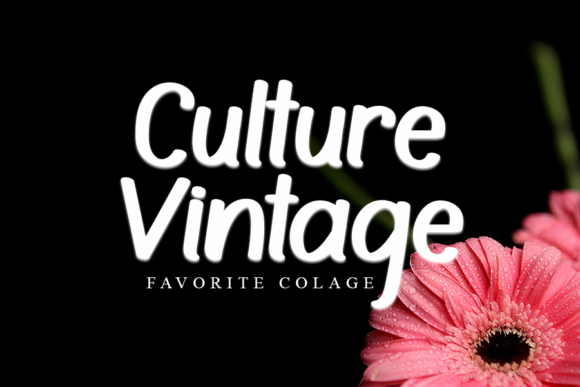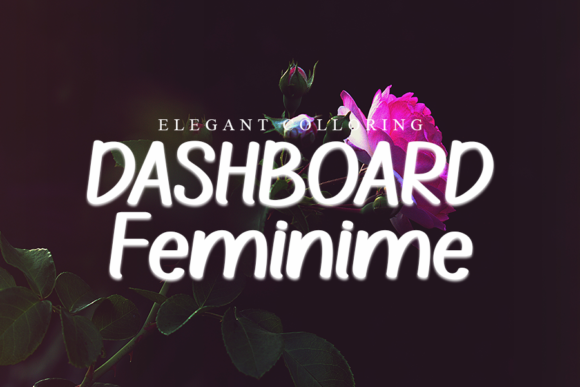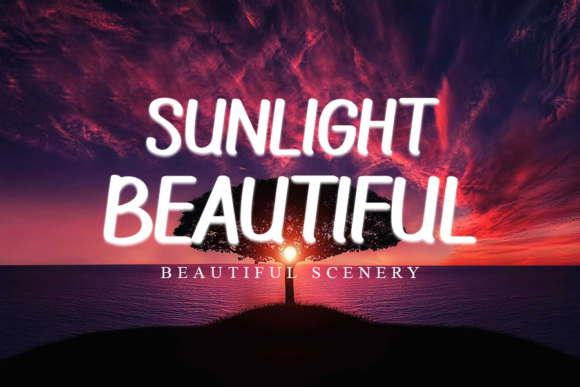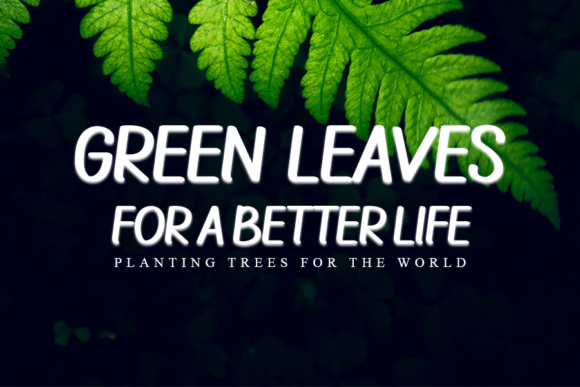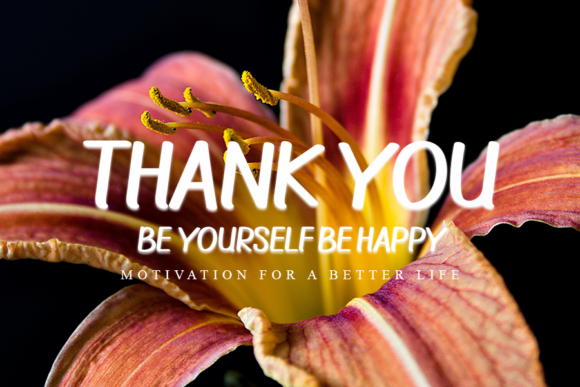
Discovering the Perfect Handwritten Touch
Have you ever been brainstorming a creative project and suddenly, the perfect font pops into your mind? For me, it was the sound of a brush pen gliding across the page, creating a smooth, effortless line that echoed the Ballpoint Font’s signature style.
The Ballpoint Font is a beautifully crafted, handwritten font that’s perfect for adding a touch of personality to your designs. Whether you’re working on a letterhead, title, or stationery, this font is sure to bring a sense of warmth and approachability to your work. Its casual, yet refined style makes it a valuable asset for designers looking to add a unique touch to their projects.
With the Ballpoint Font, the possibilities are endless – from elegant invitations to playful social media graphics, this font is the perfect companion for any creative project.
Key Features of Ballpoint Font
- Unique Characteristics: The Ballpoint font features a distinctive, handwritten style with a range of line widths and subtle texture, giving it a unique, organic feel.
Ballpoint Font Review
I’ve had the chance to work with Ballpoint Font, and I must say it’s a unique addition to any design project. ✨ The font’s quirky, handwritten feel adds a touch of personality to text, making it perfect for creative projects, social media graphics, or even advertisements. The subtle imperfections and irregularities in the font give it a human touch, which can be really effective in conveying a brand’s tone.
One of the standout features of Ballpoint Font is its versatility. ✨ It works well in both digital and print formats, and the font’s compact footprint makes it easy to use in small spaces. Additionally, the font is highly customizable, allowing designers to adjust the size, color, and even the spacing between letters to suit their needs.
However, there are a few limitations to consider. ⚠️ For one, Ballpoint Font may not be the best choice for body text, as its irregularities can make it difficult to read in large blocks of text. Additionally, the font’s handwritten feel may not be suitable for formal or professional projects.
Overall, I think Ballpoint Font is a great addition to any designer’s toolkit. While it may not be the best choice for every project, it’s definitely worth having in your arsenal for those occasions when you need to add a touch of personality to your design. With its unique feel and high level of customization, Ballpoint Font is a solid choice for designers looking to add some creativity to their work.
- Quirky, handwritten feel
- Works well in digital and print formats
- Compact footprint
- Not suitable for body text or formal projects
Getting the Most Out of Ballpoint Font
Ballpoint Font is a versatile font that can be used in a variety of contexts. To get the most out of it, try using it in bold or italic styles to add emphasis.
You can also experiment with different font sizes to create visual interest.
Ballpoint Font is commonly used in:
• Retro-themed designs
• Handwritten or cursive text
• Titles and headings
Alternatives to Ballpoint Font
Helvetica
Helvetica is a highly legible sans-serif font, suitable for a wide range of applications. It’s particularly effective for body text, headings, and titles. When to use: For publications, websites, and any project requiring a clean and neutral font. Compared to Ballpoint Font, Helvetica is more versatile and widely used.